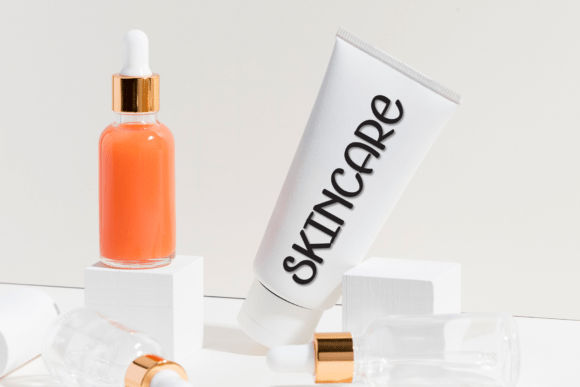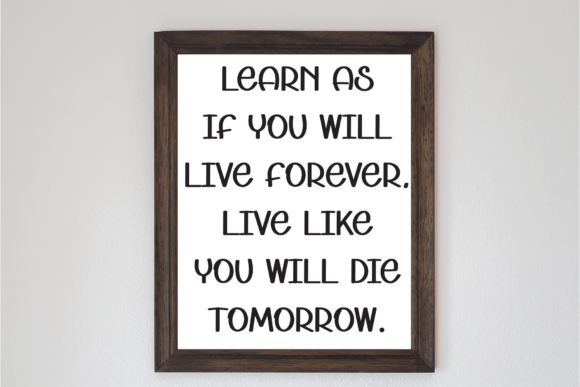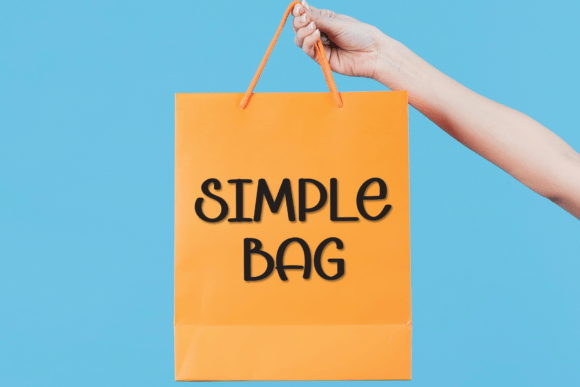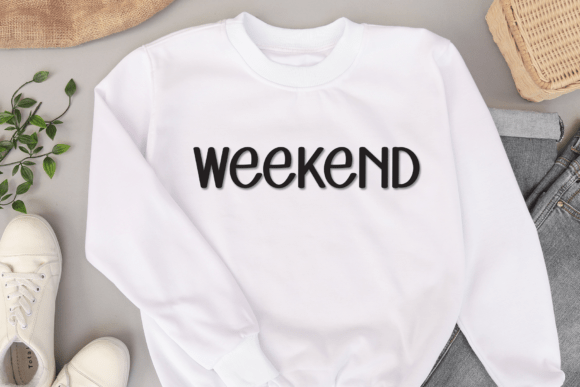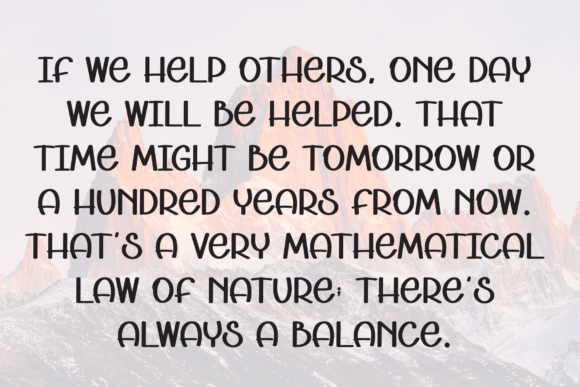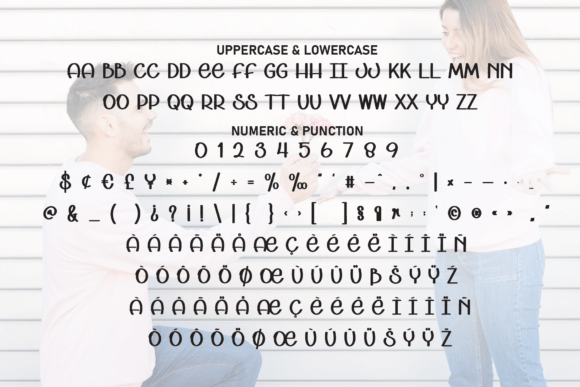
Introduction to Flower Husband Font
Do you remember the feeling of holding your first wedding invitation, adorned with delicate calligraphy and whimsical illustrations? For many of us, it’s a moment that sparks joy and sets the tone for a lifetime of love and happiness. As designers, we strive to recreate this magic in our creative projects, making every detail count. That’s where the Flower Husband Font comes in – a charming and warm-hearted handwritten font that exudes the essence of happiness and fun.
This delightful typeface, also known as Sweet & Friendly, is perfect for personalizing wedding invites and heartfelt greetings. With its playful and endearing touch, it’s an invaluable design resource for any creative project. Whether you’re looking for a free download or a high-quality font with a transparent background, the Flower Husband Font is an excellent choice for designers seeking to add a bit of whimsy and personality to their designs.
Key Features of Flower Husband Font
- Unique, hand-drawn design ideal for creative projects and personal use
- Includes a range of characters, including uppercase and lowercase letters, numbers, and special symbols
Honest Review: Flower Husband Font
One of the things that really stood out to me was the high quality of the font. It’s incredibly clear and legible, even at small sizes. I’ve used it for a variety of design projects, from social media graphics to print materials, and it’s performed flawlessly.
Some of the things that work well with the Flower Husband Font include:
- Its versatility – it works well in a variety of contexts and styles
- Its high quality and clarity
- Its transparency, which makes it easy to use on both light and dark backgrounds
That being said, there are a few limitations to be aware of:
- The font may not be suitable for use in extremely formal or professional settings
Introduction to Flower Husband Font
Tips for Getting the Most Out of Flower Husband Font
Here are a few tips for getting the most out of the Flower Husband Font:
- Use the font in combination with other design elements to create a cohesive look.
- Experiment with different font sizes and styles to add visual interest.
- Take advantage of the font’s transparent background to create a seamless look.
Common Use Cases for Flower Husband Font
The Flower Husband Font is perfect for a variety of creative projects, including: